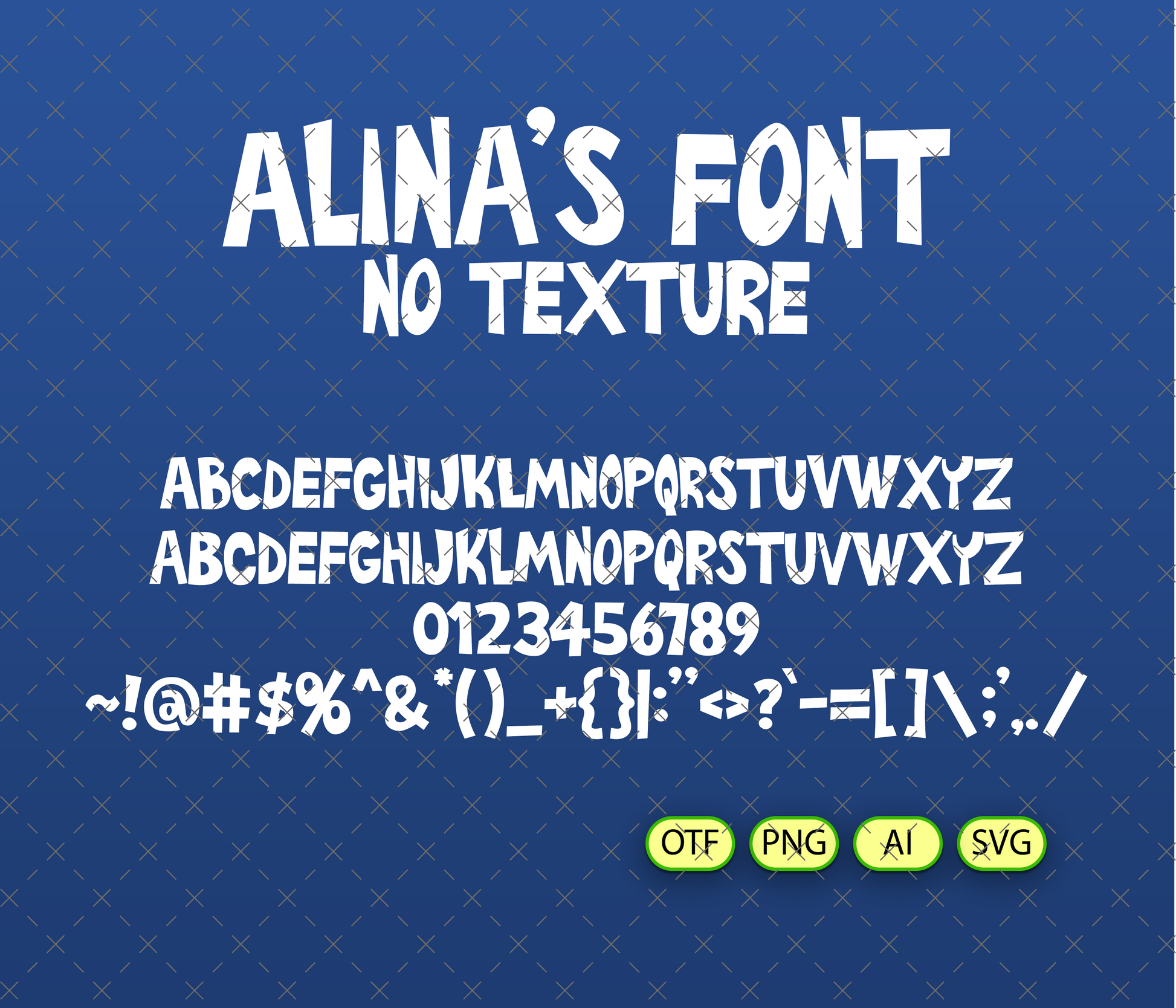
Swagger Style Hero Font Plain Edition
Step into the audacious world of misplaced confidence with our Swagger Style Hero Font Plain Edition, capturing the essence of comedic vanity and retro cartoon bravado. Perfect for nostalgic animation lovers, party planners, digital creators, and artistic professionals, this font brings the vibrant, humorous spirit of self-absorbed protagonist tales to your projects. Create memorable invitations, branded products, or online content with the entertaining appeal of delusional charm narratives.
Bold Typography for Vintage Design & Comedy Projects
Our Swagger Style Hero Font Plain Edition features bold, stylized letterforms with smooth, unadorned finishes reflecting the world of overconfident animated personalities and everyday neighborhood atmospheres.
Our font pays tribute to the world of comedic vanity stories and classic cartoon culture, empowering your projects with its vibrant and humorous spirit. Whether crafting fan materials, designing nostalgic products, or adding an entertaining touch to personal projects, this font communicates the lively essence of self-absorbed entertainment. Ready to inject audacious humor into your creations? This font is your key to memorable, impactful design.